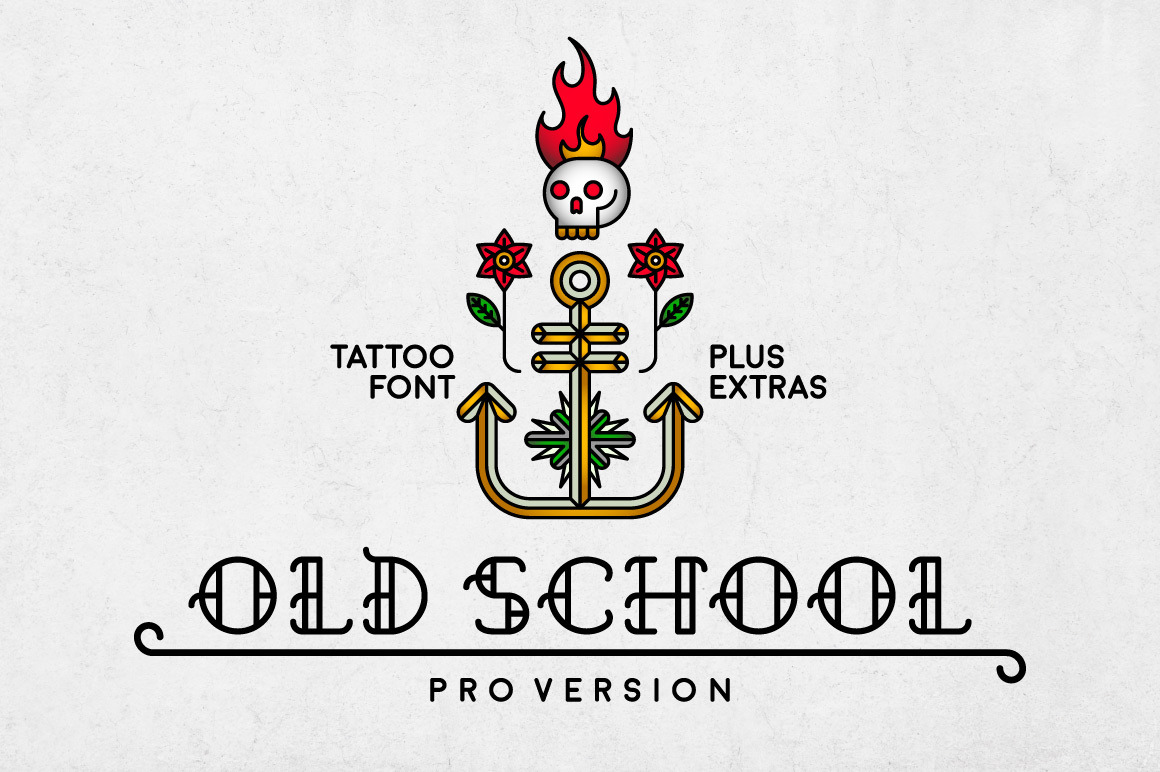
Old School - cool tattoo retro font
Introducing Old School
Old School retro font is a decorative, old school tattoo inspired typeface in modern performance. This tattoo font includes uppercase characters, punctuation and numerals. It is perfect for:
- Logos
- Posters
- Labels
- Headlines
- Apparel
- Tattoo
- & more